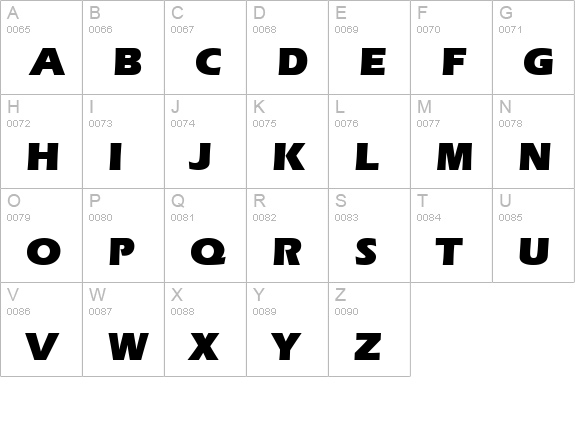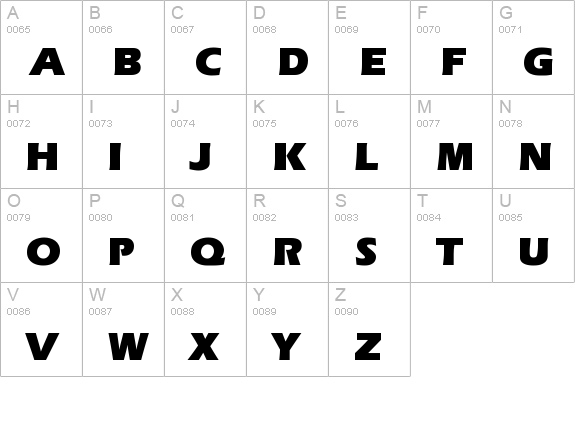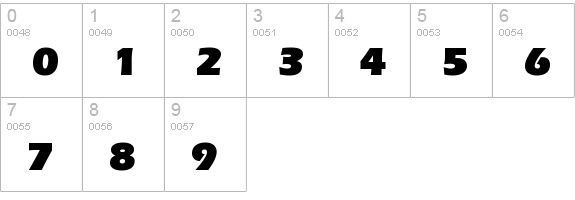
Speedo Ultra SSi Black is an extreme-weight, display variant in the Speedo typeface family \xE2\x80\x94 well suited to extreme display use where maximum visual weight is required.
Introducing the classy and sleek Speedo Ultra SSi Black font! This font exudes an air of sophistication and modernity, making it an ideal choice for a wide range of design projects. With its bold and striking appearance, Speedo Ultra SSi Black commands attention and demands to be noticed. The carefully crafted letterforms of Speedo Ultra SSi Black showcase a perfect balance between elegance and readability, making it versatile and suitable for various applications. Whether you're designing a logo, creating a headline, or crafting a poster, this font will effortlessly elevate your design to new heights. What's even better is that Speedo Ultra SSi Black is freely available to download at FontsMarket.com! Yes, you read that right – you can get your hands on this exceptional font without spending a dime. FontsMarket.com offers a vast collection of high-quality fonts, and Speedo Ultra SSi Black is a gem among them. With its sleek and sophisticated aesthetic, Speedo Ultra SSi Black will add a touch of elegance to your designs. Its versatility and ease of use make it a must-have for any designer or creative professional. So don't wait any longer, head over to FontsMarket.com and grab your free download of Speedo Ultra SSi Black today!